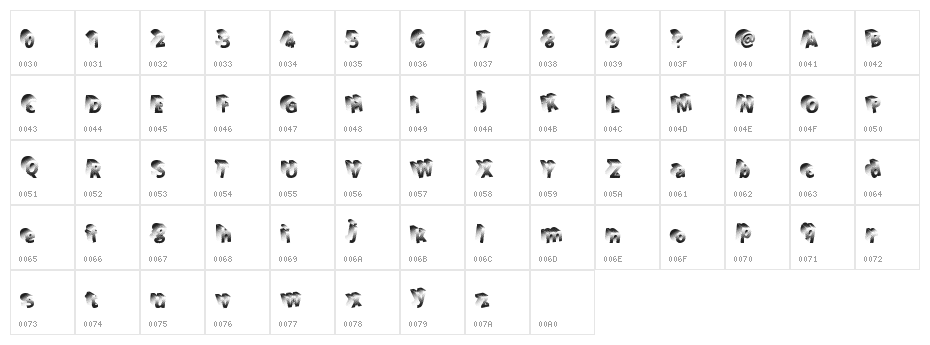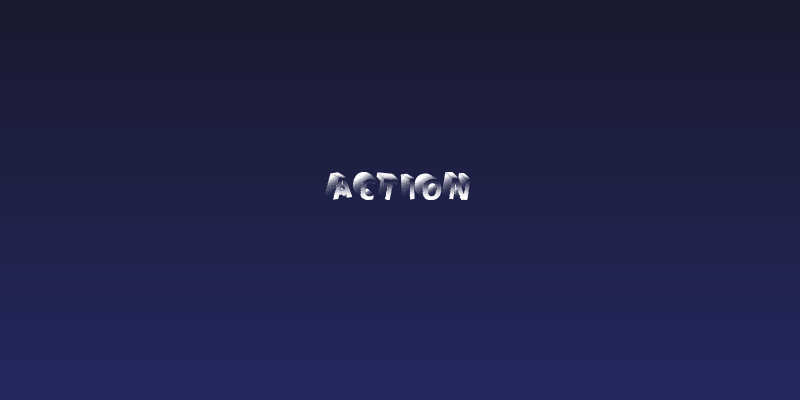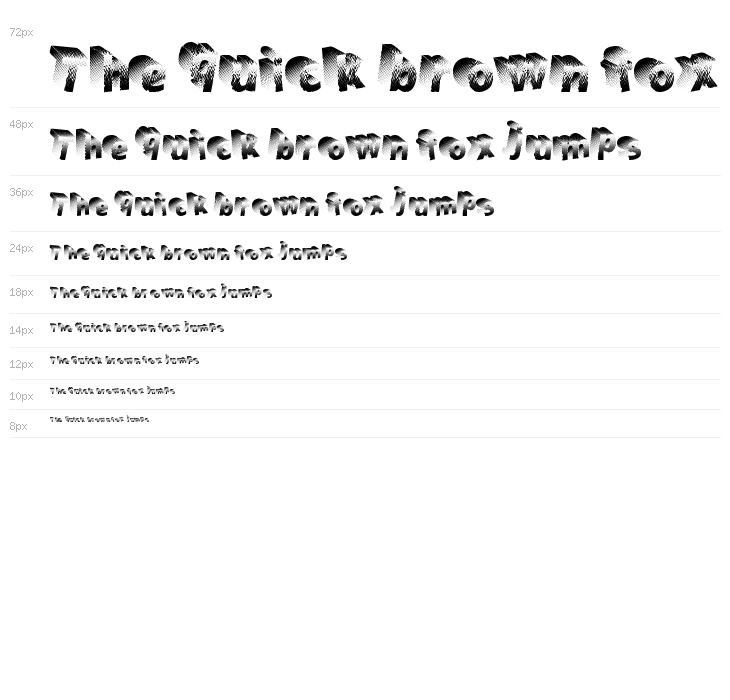
Action Font
This font features a bold, three-dimensional appearance with a halftone dot pattern that gives it a unique, textured look. The characters are slightly tilted, adding a dynamic and playful feel. The boldness of the letters is accentuated by the shadow effect, creating a sense of depth and movement. This style is reminiscent of comic book art or retro pop art, making it stand out with its eye-catching design. The uppercase and lowercase letters maintain this consistent style, and the numbers and special characters follow suit, ensuring a cohesive look across all elements.
| Overall Style | Retro, Comic |
| Use Case | Headlines, Posters, Logos |
| Proposed Projects | Ideal for comic book covers, retro-themed posters, playful branding, or any project needing a bold, artistic touch. |